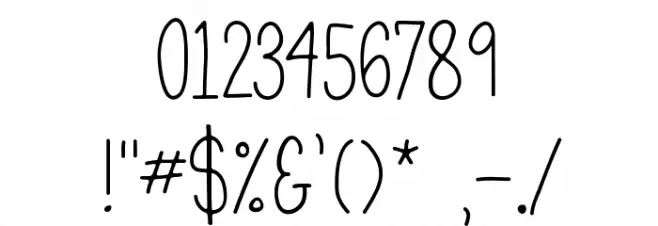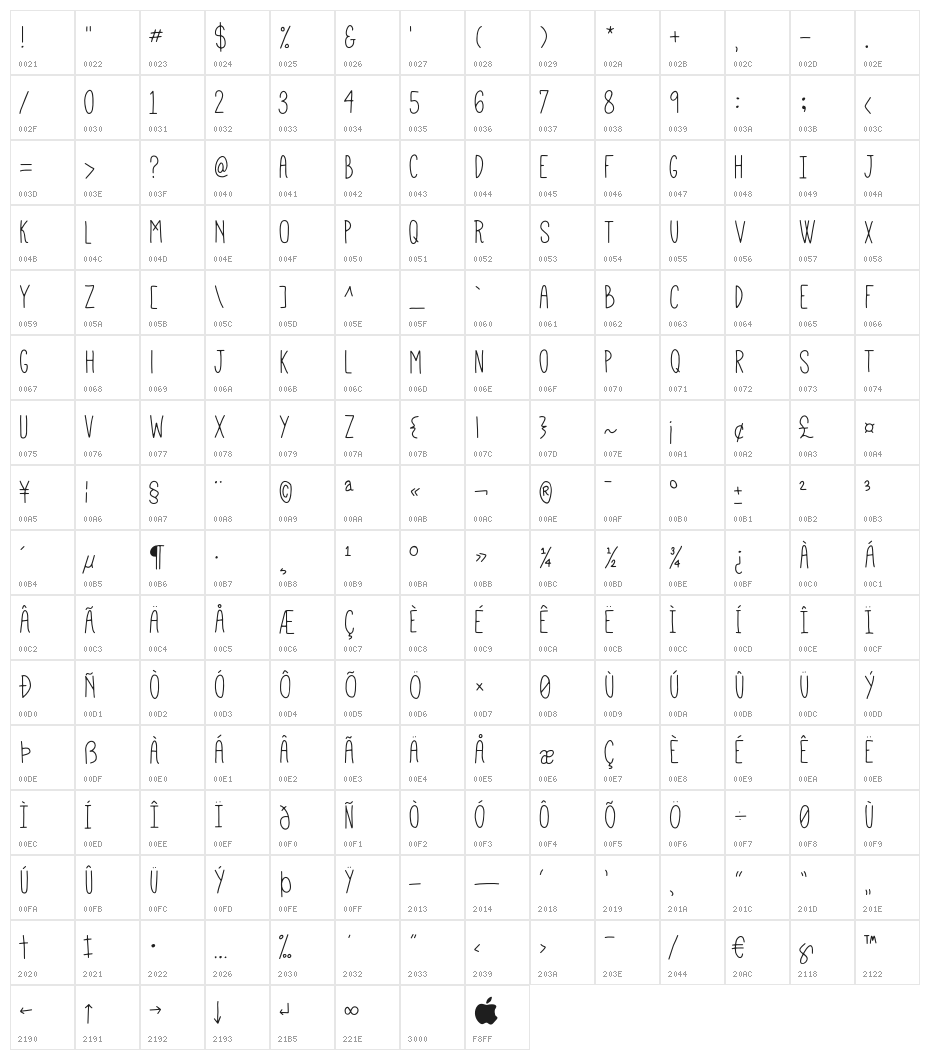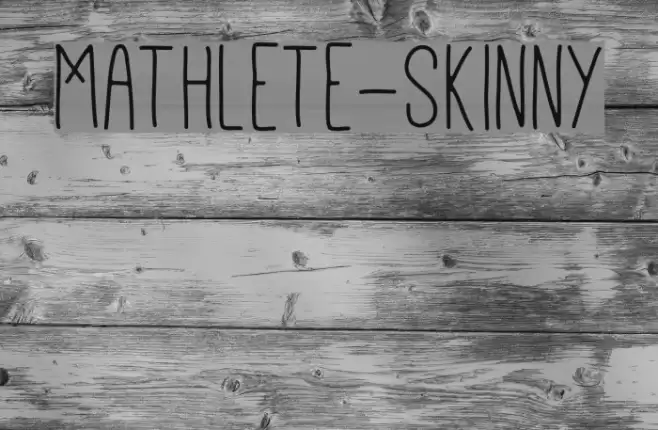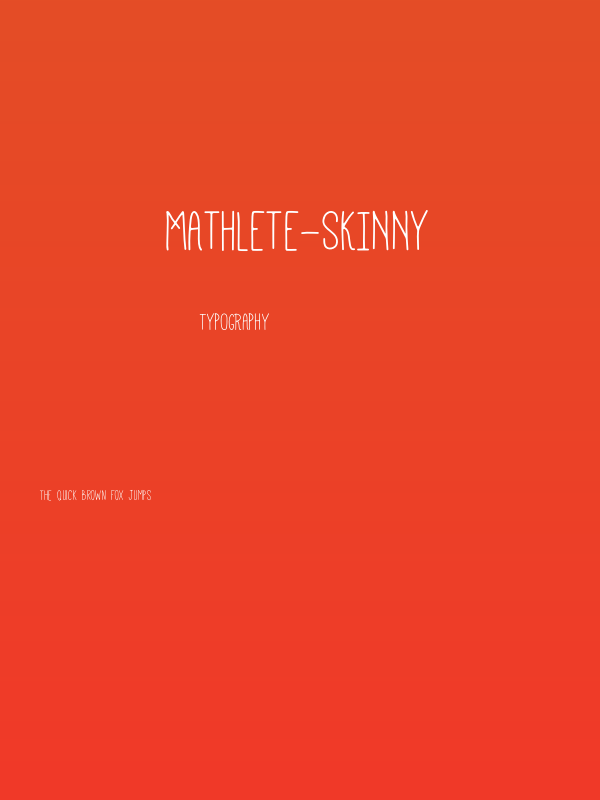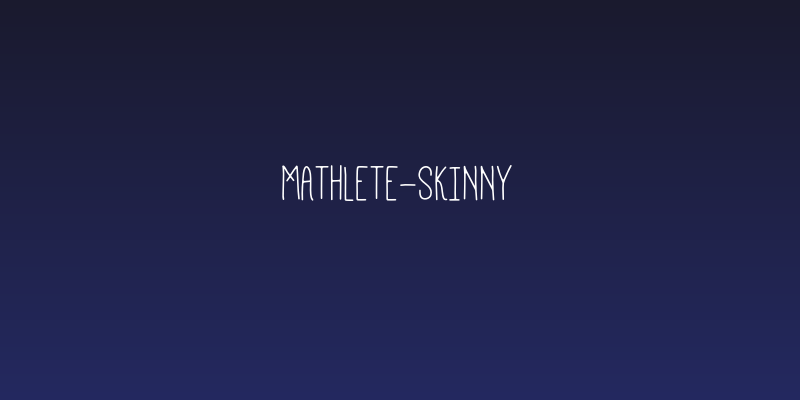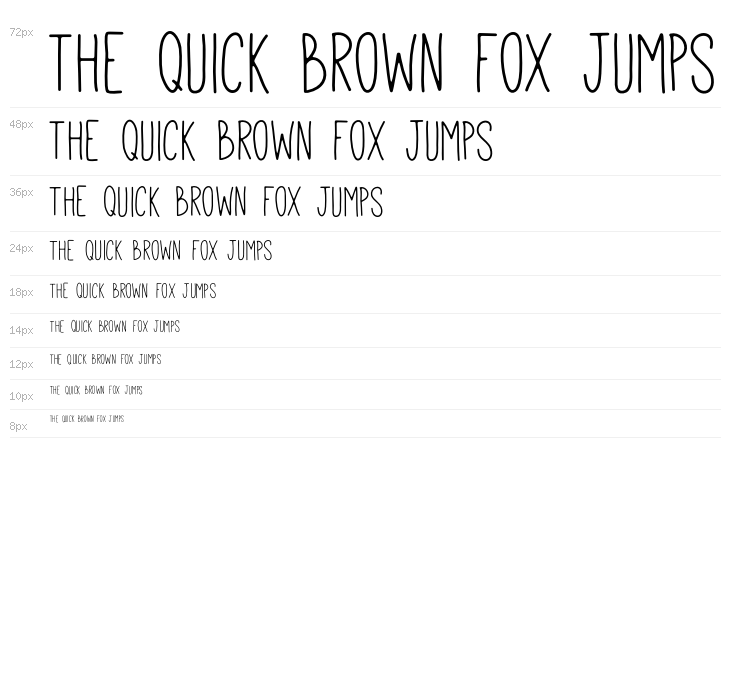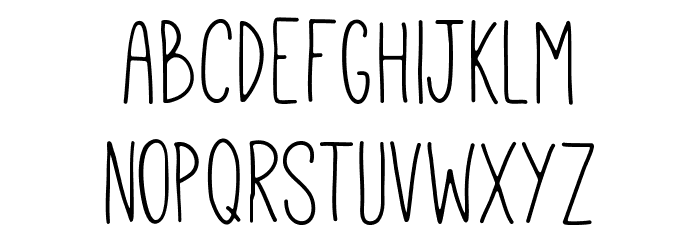
Mathlete-Skinny Font
Mathlete-Skinny Description
This font features a playful and casual handwritten style, characterized by its tall and narrow letterforms. The strokes are consistent in width, giving it a clean and uniform appearance. The characters have a slight slant, adding a dynamic and informal touch. The uppercase and lowercase letters maintain a consistent height ratio, enhancing readability. The numerals and special characters are designed to match the overall aesthetic, making it versatile for various applications. Its simplicity and charm make it suitable for projects that require a friendly and approachable look.
| Use Case | Headlines, Informal text, Branding |
| Proposed Projects | Ideal for greeting cards, children's books, casual branding, and social media graphics. |